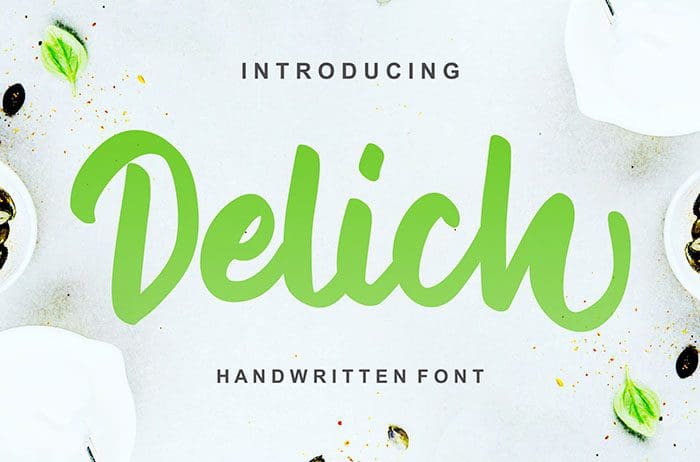
Delich Handwritten Font
Delich is a lovely and modern handwritten font with a welcoming character. It is perfectly suited for a wide variety of projects! Thanks to Vunira Studio for sharing this font. Take a look at this portfolio for more of his stunning fonts.